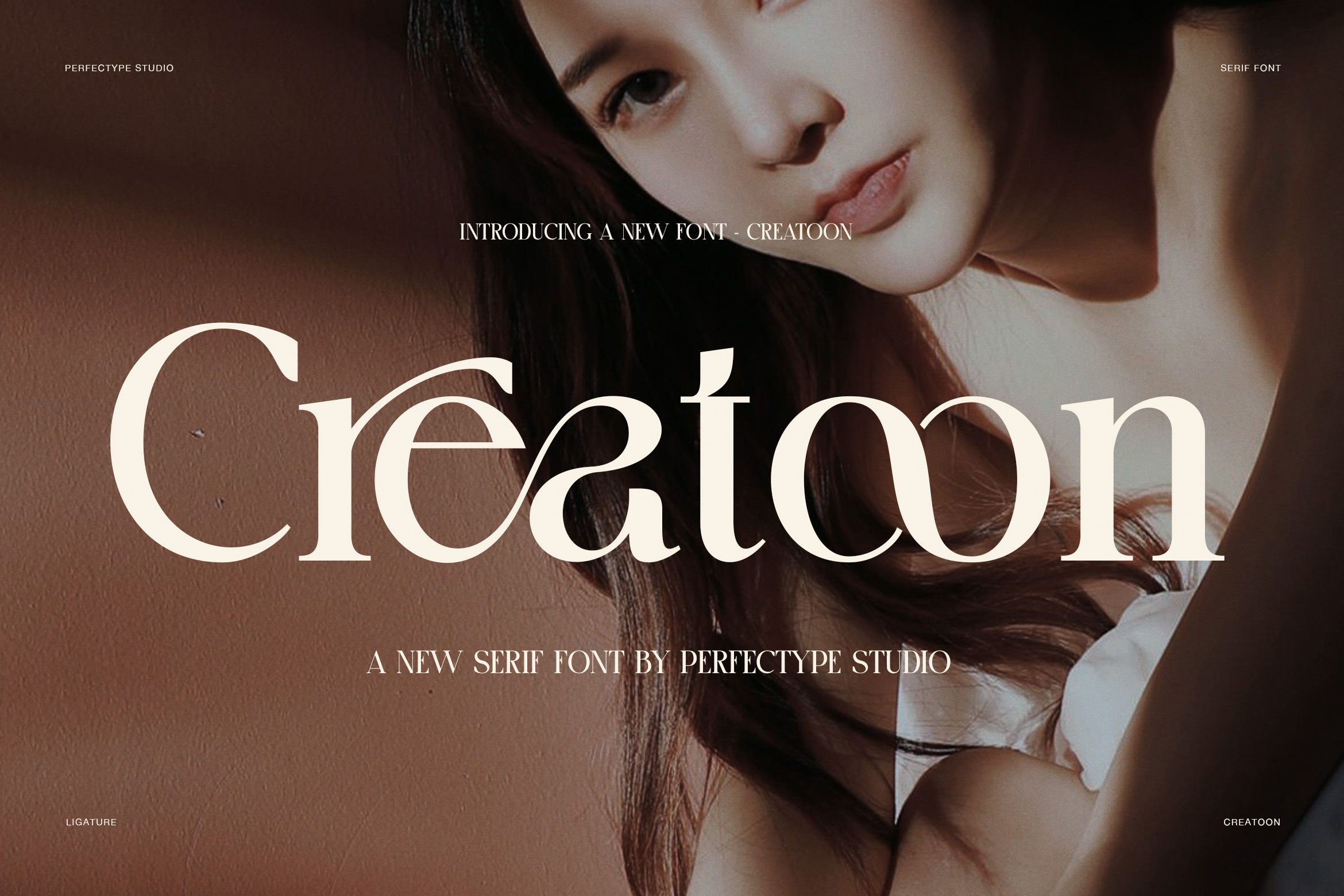
Creatoon Modern Serif Font
Creatoon is a modern serif font with ligatures created for designers who want a bold, elegant, and stylish display typeface. Its strong contrast gives every word a refined look, while its flowing details add a touch of character. As a result, the font feels both classic and fresh.
The design uses thick main strokes and fine hairlines to create a clear visual rhythm. Therefore, large headlines look sharp, clean, and full of style. At the same time, the curved lowercase forms bring a softer feel to names and short phrases. This balance makes Creatoon a useful choice for many creative projects.
Why Creatoon stands out
High-contrast modern serif design
Elegant uppercase and lowercase letters
Distinctive decorative ligatures
Refined curves and sharp serif details
Stylish display letterforms
Strong look for large headlines
Great fit for premium visual projects
Moreover, the ligature set gives Creatoon a custom feel without losing its clean structure. Selected letter pairs join together with smooth and clever shapes. Consequently, simple words can gain a more personal and crafted appearance.
Creatoon works especially well for fashion branding, beauty logos, restaurant branding, editorial layouts, luxury packaging, interior design, wedding stationery, and lifestyle projects. It can also add a polished look to magazine titles, social media graphics, product labels, menus, posters, and creative presentations.
For branding, the font can make a name feel confident and memorable. Likewise, its elegant shapes can help create a premium mood for beauty and fashion campaigns. For editorial work, the strong contrast gives headlines a clear visual focus. Meanwhile, the ligatures add extra detail when you want a more distinctive result.
The font also performs well when paired with a simple sans serif. Use Creatoon for the main title, then choose a clean sans serif for smaller text. This approach creates contrast while keeping the overall layout easy to read.
Overall, Creatoon brings modern serif typography, elegant contrast, and artistic ligatures into one versatile display font. Whether you are creating a fashion identity, restaurant logo, beauty campaign, or editorial design, it can give your work a stylish and professional finish.